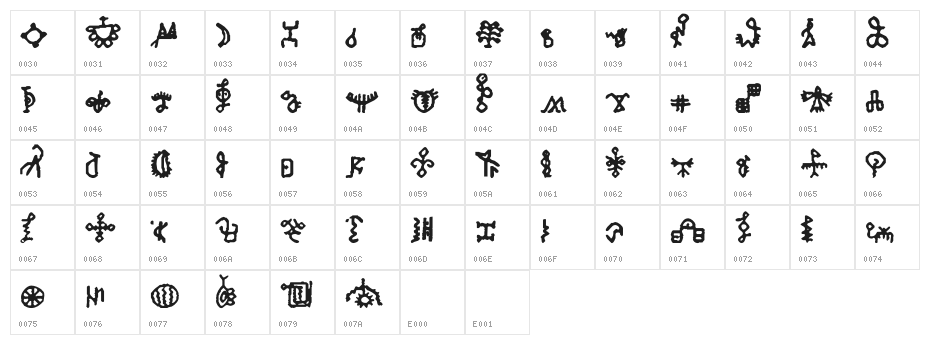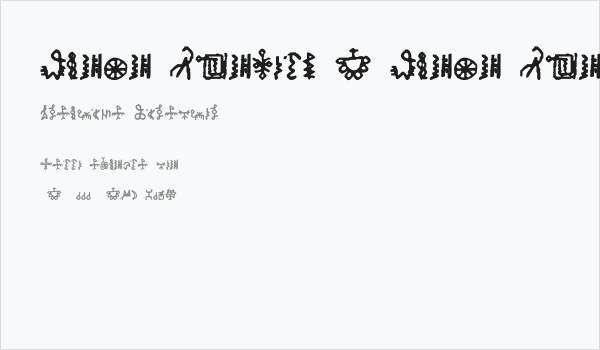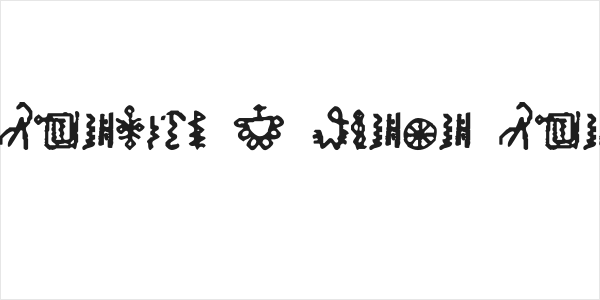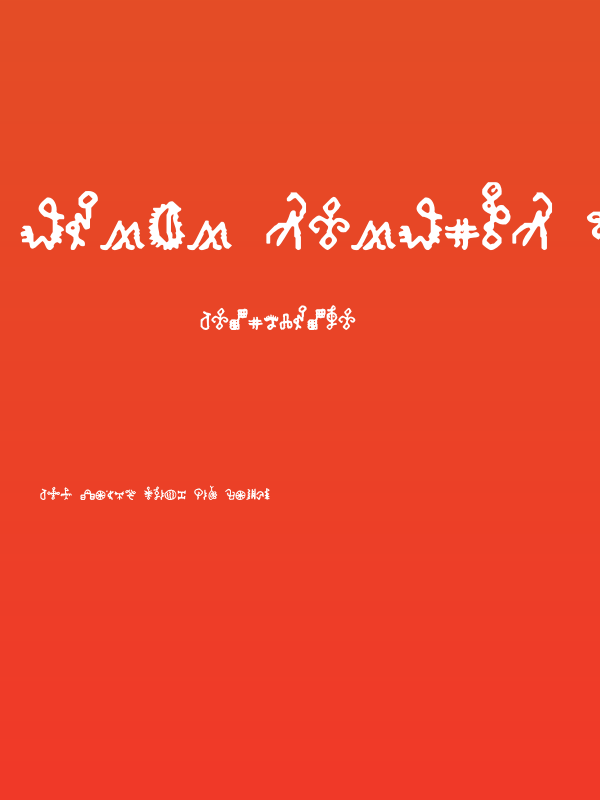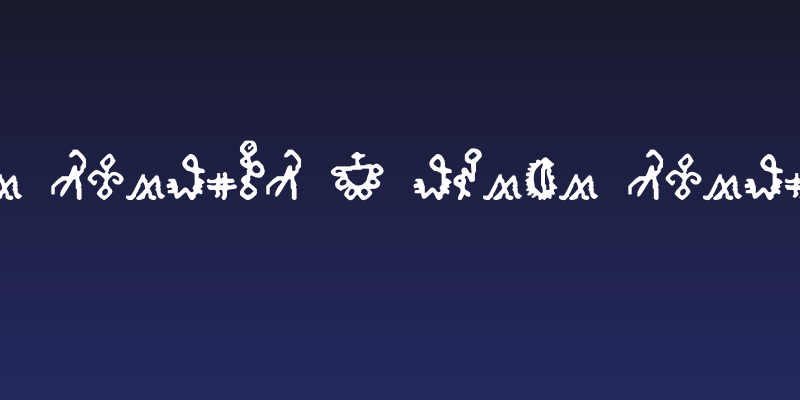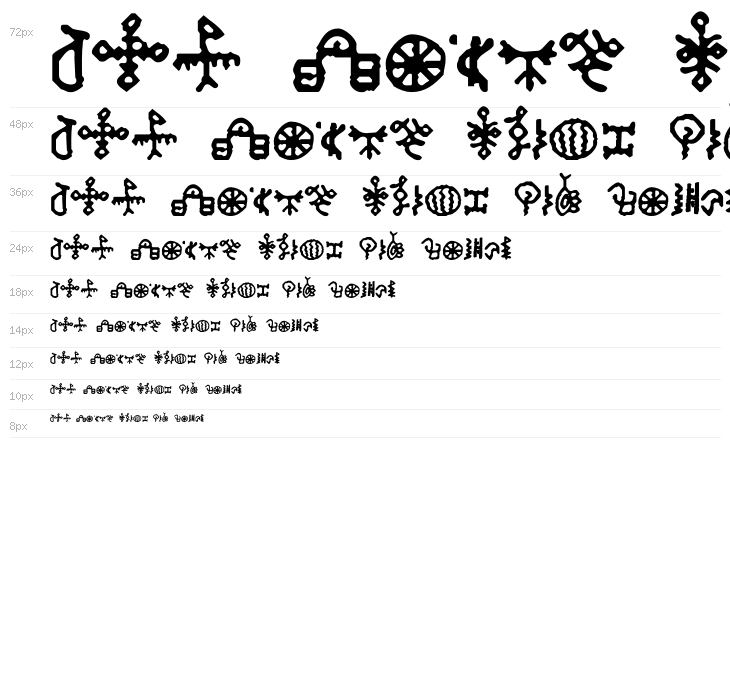
Bamum Symbols 1 Font
Bamum Symbols 1 Description
A set of intricate, pictographic symbols with organic, hand-drawn strokes and varying line thickness, evoking an ancient or indigenous script. The symbols are highly decorative and abstract, with no resemblance to standard Latin alphabet or numerals.
| Overall Style | Decorative, Ethnic, Historical |
| Use Case | Display, Art, Cultural documentation |
| Proposed Projects | Cultural exhibitions, educational materials, historical reconstructions, artistic projects, themed posters. |